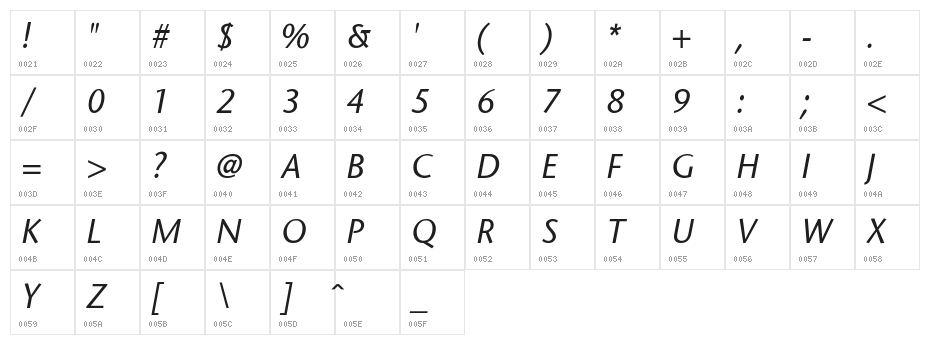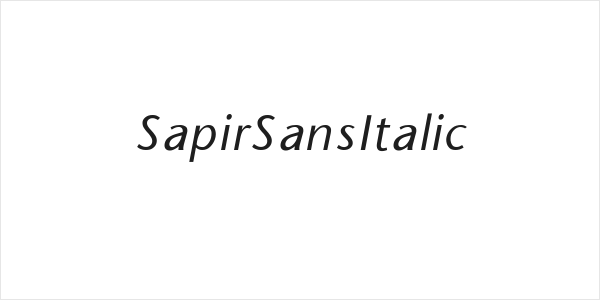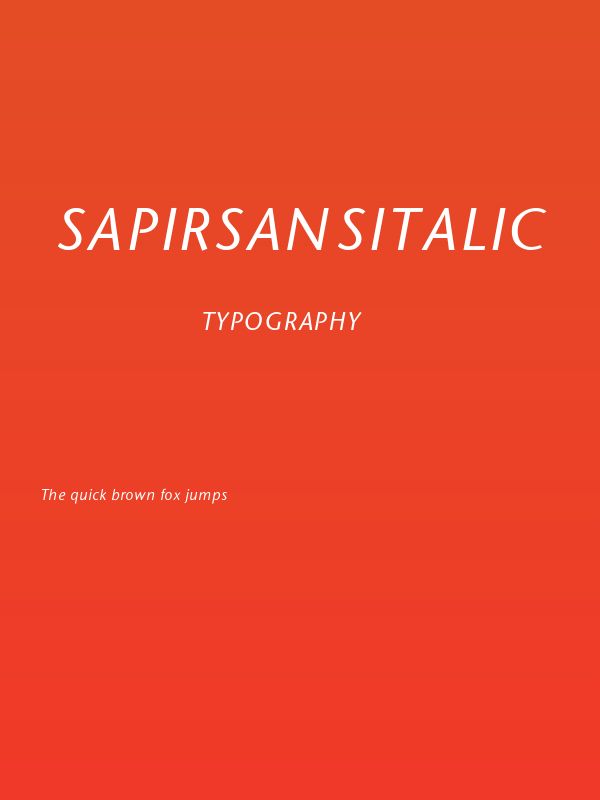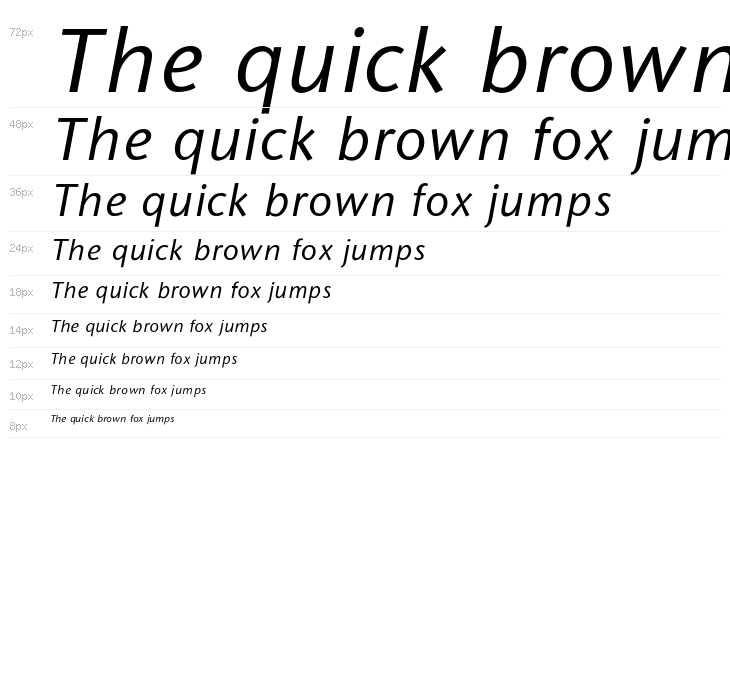
SapirSansItalic Font
SapirSansItalic Description
This font features a clean and modern sans-serif style with a noticeable italic slant, giving it a dynamic and forward-moving appearance. The characters are well-proportioned, with smooth curves and a consistent stroke width that maintains readability across various sizes. The uppercase letters are slightly taller than the lowercase, providing a clear distinction between the two. The numerals are aligned with the uppercase height, ensuring uniformity in mixed text. Special characters are designed to match the overall aesthetic, with a balanced and harmonious look.
| Proposed Projects | Ideal for branding, advertising, and editorial design projects where a modern and dynamic feel is desired. |